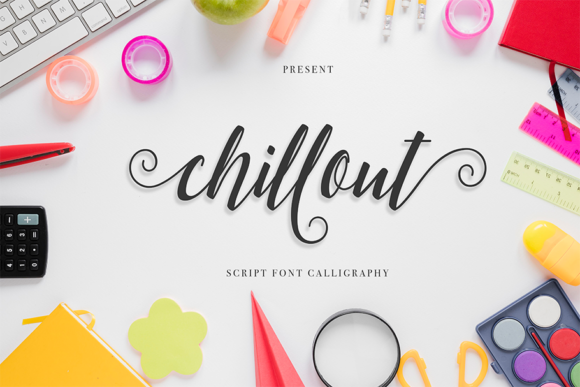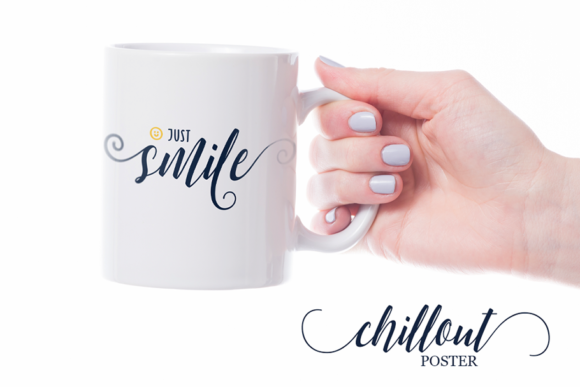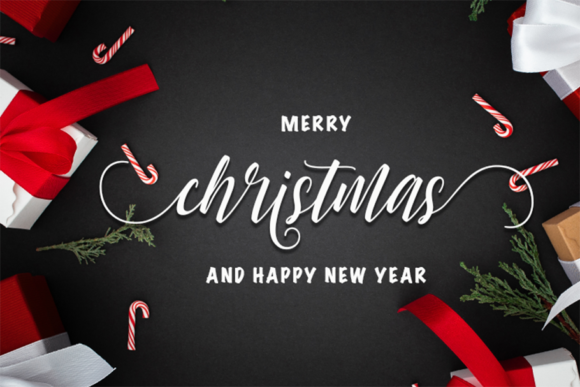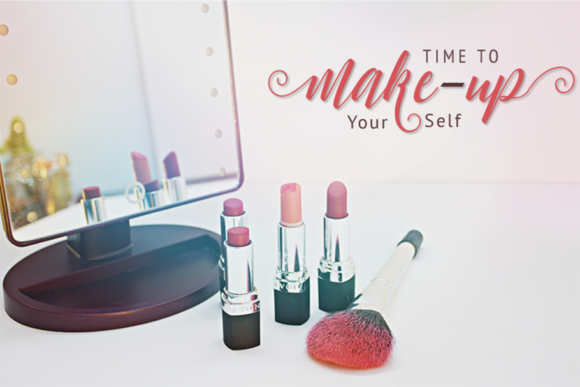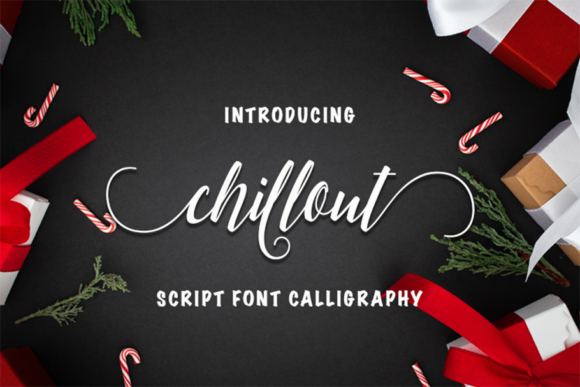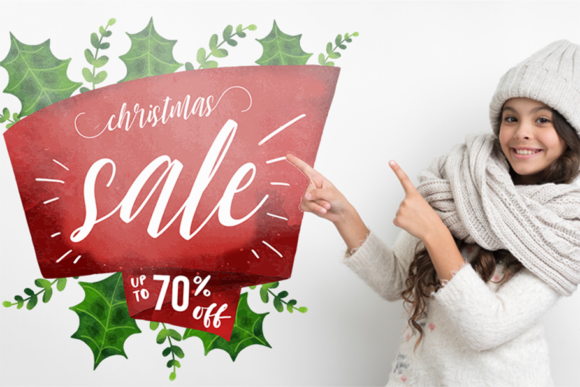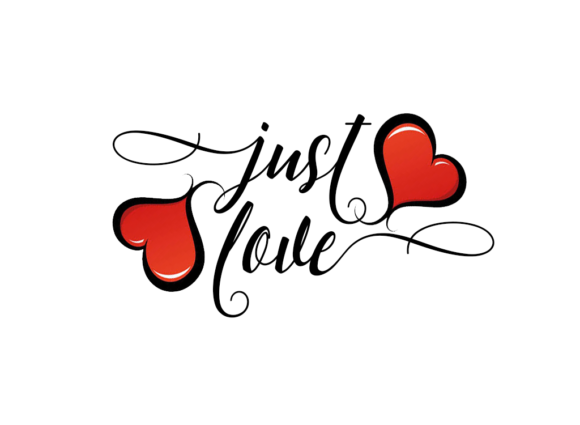
HomeScript FontsChillout Font Script Fonts Chillout Font FacebookXPinterestWhatsApp Chillout Font Poster 2 Chillout Font Poster 3 Chillout Font Poster 4 Chillout Font Poster 5 Chillout Font Poster 6 Chillout Font Poster 7 Chillout Font Poster 8 About Chillout Font Chillout is a modern calligraphy script that’s both fancy and fresh. Fall in love with this gorgeous font! DOWNLOAD ON CREATIVE FABRICAThis font is sold and delivered by Creative Fabrica. Font Canyon may earn a commission if you buy through this link. People also explored Beach Crush Font Magnifique Font Green Juice Font Astrochemistry Meryline Font Candy Girl Font Exploring Font Trends Natarasda Font Gabita Font 303 0 TagsChillout Font Previous articleConsistance FontNext articleMistari Font LEAVE A REPLY Cancel reply Comment: Please enter your comment! Name:* Please enter your name here Email:* You have entered an incorrect email address! Please enter your email address here Website: Save my name, email, and website in this browser for the next time I comment. Personal Use Free The Brighton Personal Use Free Read more about this font Bonifaciy Personal Use Free Read more about this font Choco Shake Font Personal Use Free Read more about this font Boby Personal Use Free Read more about this font BLOG How to Install and Use Fonts on Windows, macOS, and Web Projects How to Install and Use Fonts on Windows, macOS, and Web Projects Fonts are a crucial part of design and branding. Whether you’re designing a... Best Fonts for T-Shirt Design – Top 2025 Picks Where to Buy American Fonts Online in 2024 Free Fonts Risk: Why Free Fonts Can Be Dangerous for Designers